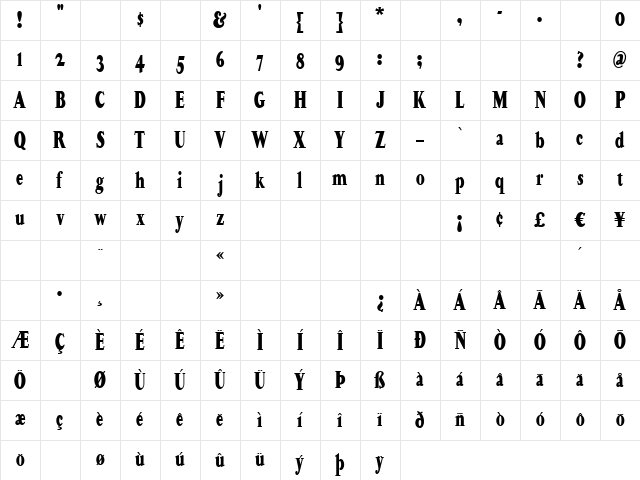
Complete HappyCampersNF Regular glyph index. Displaying only characters natively supported by HappyCampersNF Regular font.
HappyCampersNF is a composed and adaptable typeface that performs quietly and consistently across a wide range of design contexts.